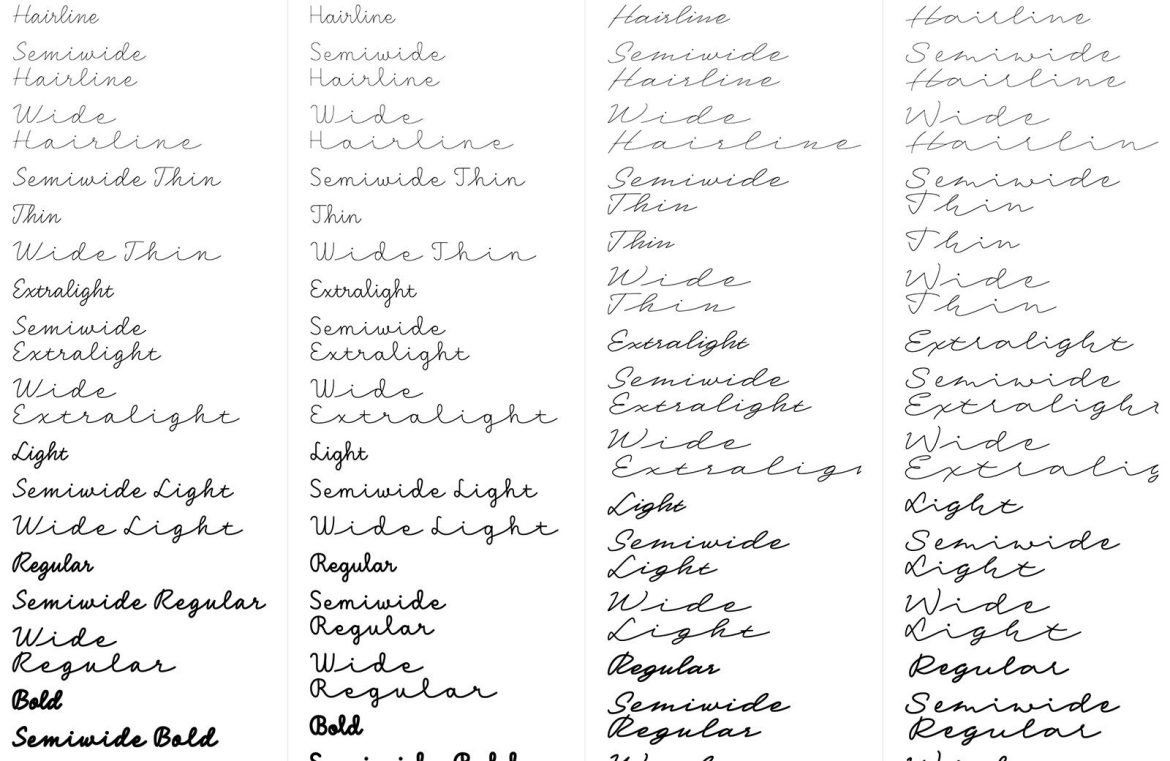
As we inch closer to the year’s end, the font scene remains vibrant and bustling. This month’s roundup includes versatile variable typefaces, cherished revivals, and playful novelty fonts, especially handy for your festive marketing campaigns. Dive in and discover the typographic treasures!
Dash
Dash emerges as a finely tuned script font, infused with a blend of academic research and artistic flair. It stands out as a prime handwriting font, presenting four distinct writing speeds: Casual, Slow, Fast, and Fastest. Each style boasts a full spectrum of weights and widths, with variable font options for maximum adaptability.
Mergansers Variable
Mergansers Variable offers a fluid reading experience at smaller text sizes. This typeface finds its muse within the birdwatching community, but its suitability extends well beyond, particularly for body text and digital mediums.
00 Wagram
00 Wagram refreshes quintessential office typefaces of the past millennium, propelling them into a new era with a wealth of variations. Its use of variable font technology grants designers full mastery over traits like weight, contrast, and stylistic alternatives, making it an invaluable asset for complex design assignments.
Lambert
Lambert exudes warmth with its slab serif configuration, subtly taking cues from traditional typewriter fonts, yet shunning the monospaced convention. Flexible for varying scales, it offers stylistic swaps that can emphasize an antique aesthetic.
Evans
Evans presents a laid-back, Old Style serif bathed in calligraphic nuances, emitting a soft and natural flow that complements editorial and branding ventures with an eye for elegance.
DT Serifia Sans
DT Serifia Sans delivers a whimsical touch with its grotesque design and serif-like flares. The bolder incarnations are particularly charming, ideal for anyone crafting spirited holiday-themed visuals.
Valpo
Valpo is the epitome of typographic artistry, each glyph crafted with the care of brush strokes or bold markers, channeling the essence of vintage signage into a modern-day font perfect for illustrated narratives. It comes in seven weights, plus variable options.
Fenul Standard
Fenul draws from the intricate forms of human osteology, visible in the stroke terminals, embodying a serif with distinctive flair suited to make a statement in large-scale applications, including orthopedic-themed designs.
Hello Radio
Hello Radio hearkens back to yesteryear with its captivating monoline script. Its nostalgic ambiance serves branding efforts in the lifestyle domain with finesse, complementing geometric sans-serifs spectacularly.
Adjunct
Adjunct epitomizes minimalist design, shedding spurs on letters for a streamlined appearance. Its bold and unfettered aesthetic finds a place in the world of logo creation.
Rundo
Rundo dominates as a decorative, all-caps family with five complementary styles that echo a bold architectural essence, shining in large display settings.
Qommodore
Qommodore is a serif to behold, uniquely monospaced and brandishing high contrast akin to didone styles, softened by subtle serif flexes. It boasts six weights and matching italics, teeming with character.
Giliant
Giliant breathes life into an Art Nouveau vision, mingling traditional forms with a plethora of alternate characters to fuel your creative urges.
Recht
Recht defines modern sophistication with its clean, geometric sans strokes, making it an exceptional pick for both branding and concise textual content.
Hemilk Soons
Hemilk Soons offers a whimsical display font, reminiscent of lettering dipped in milk. However, with a few creative modifications, one could easily transform its appearance into a winter wonderland theme, ideal for festive roof-like text adornments.